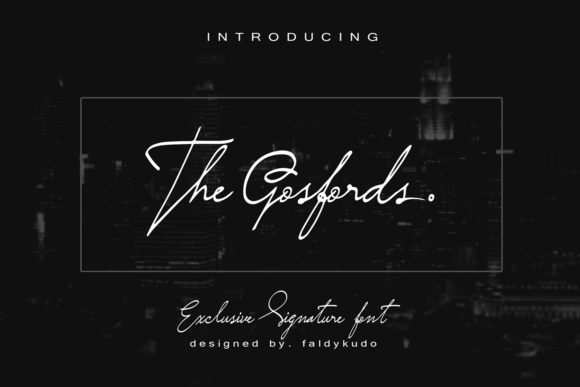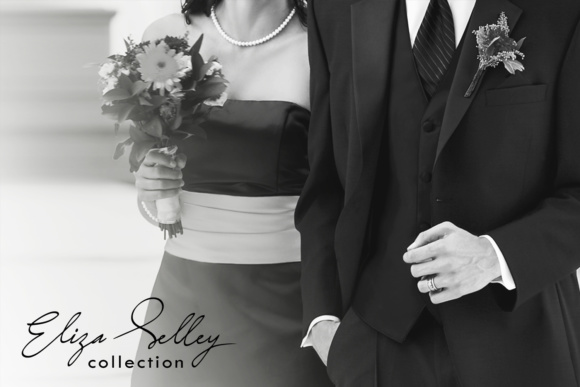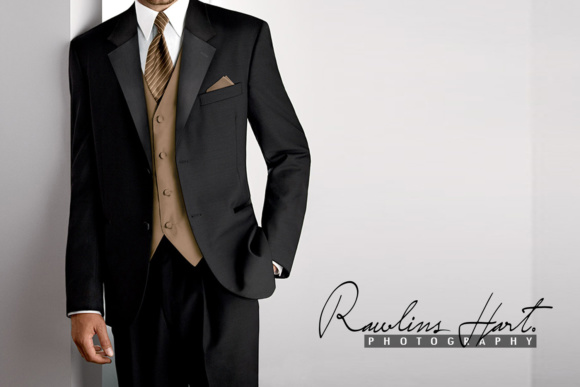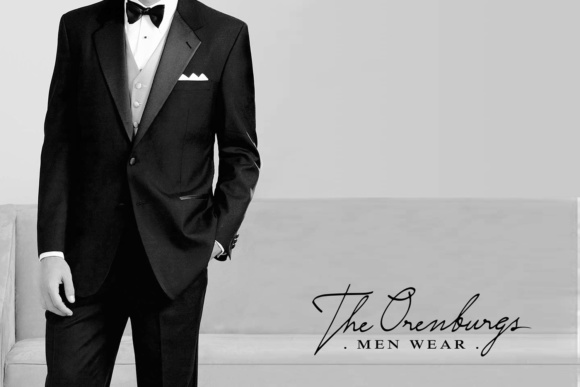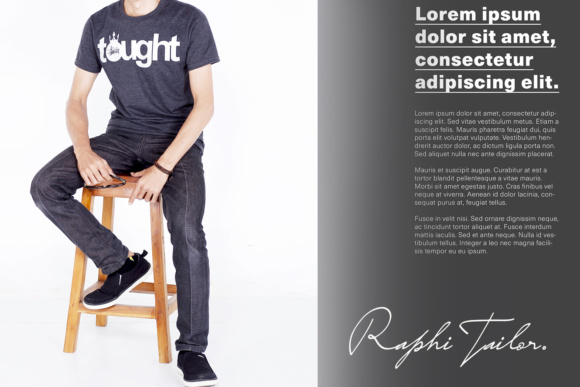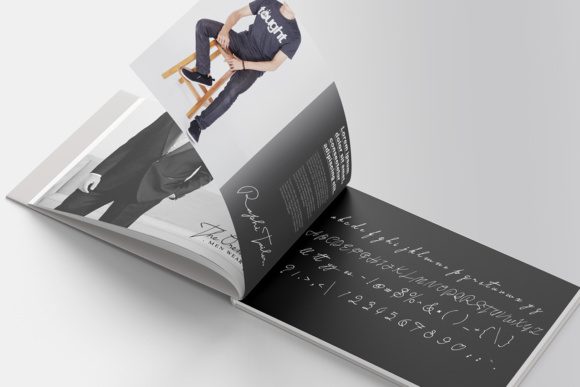
Saturday Night Font
About Saturday Night Font
The Saturday Night is an elegant signature font which was made for many different applications & styles to personalize your products.
It has extra large capitals for an unique signature style that is perfect for wedding invitations, logos, apparel, decorative quotes, photography, prints, scrap booking and much more!